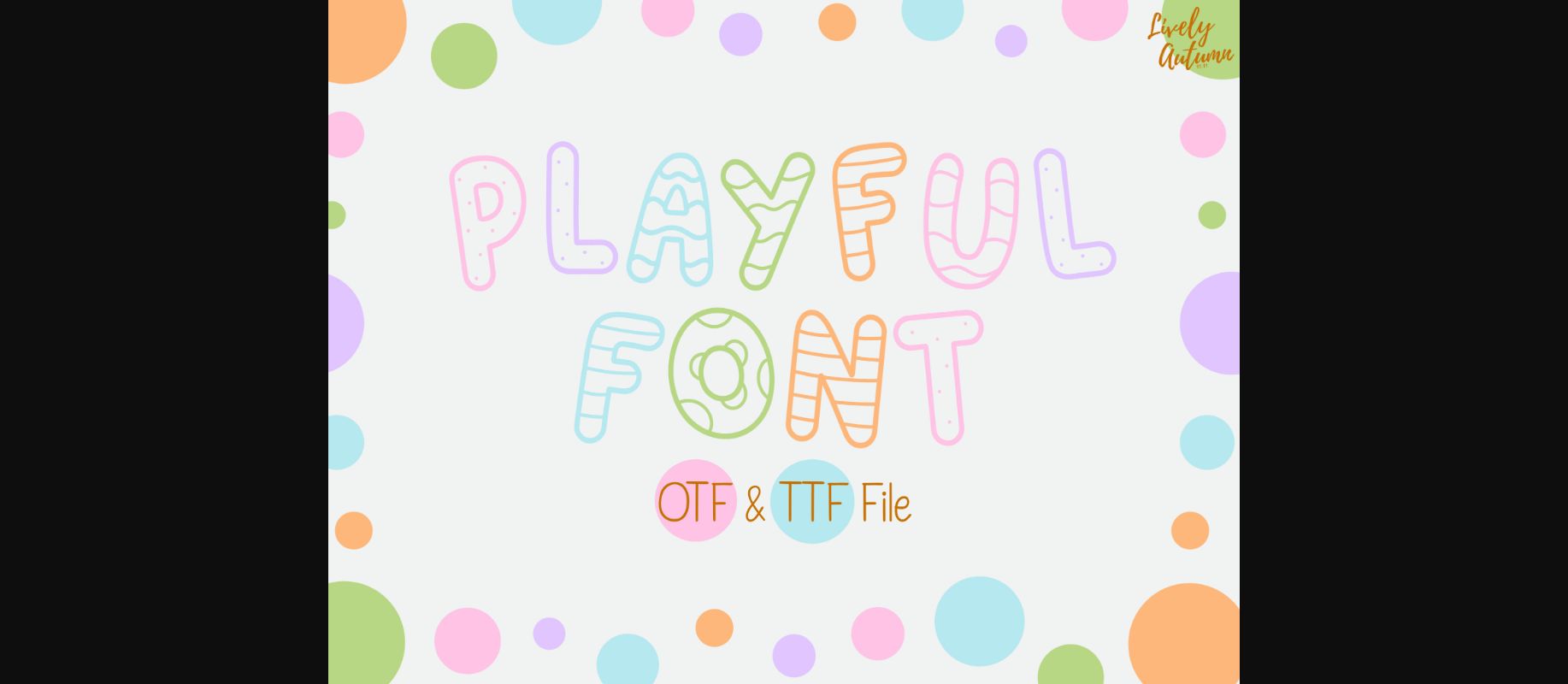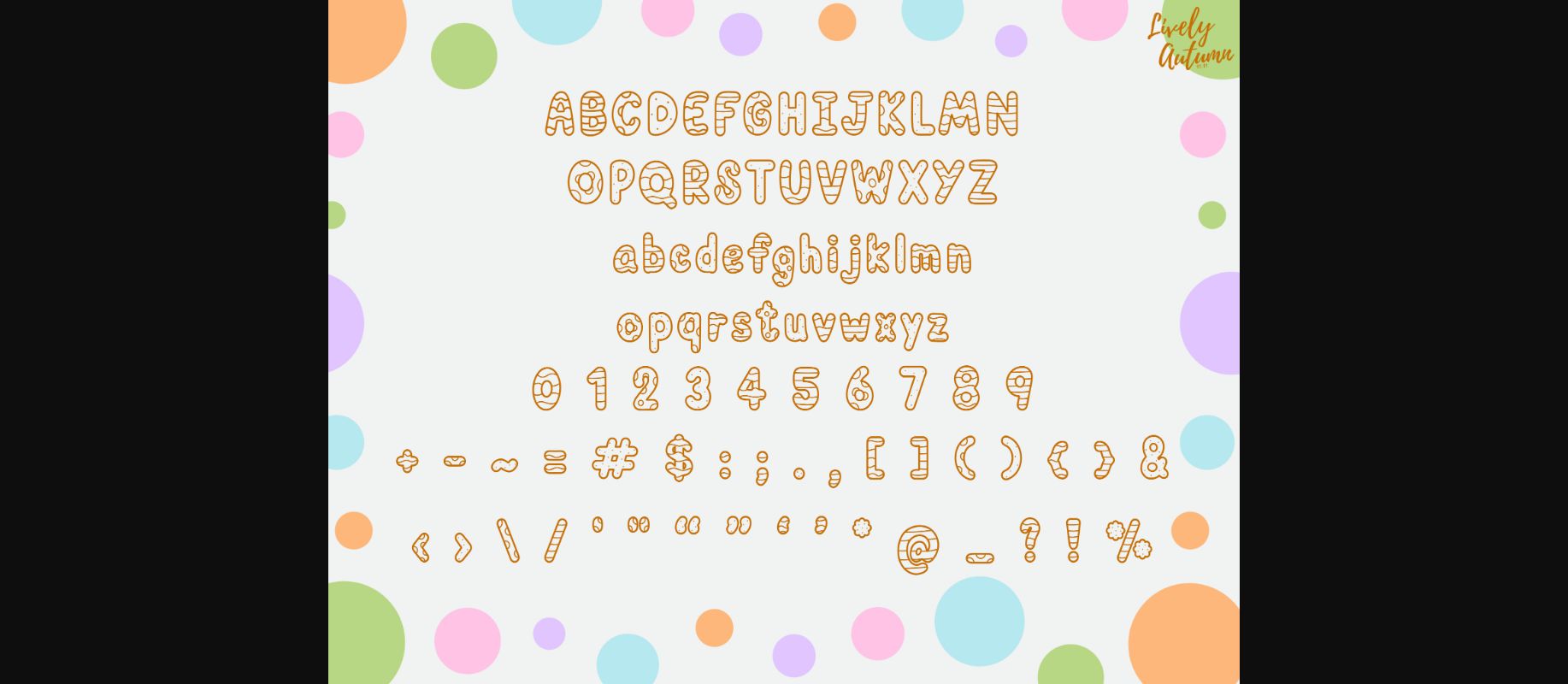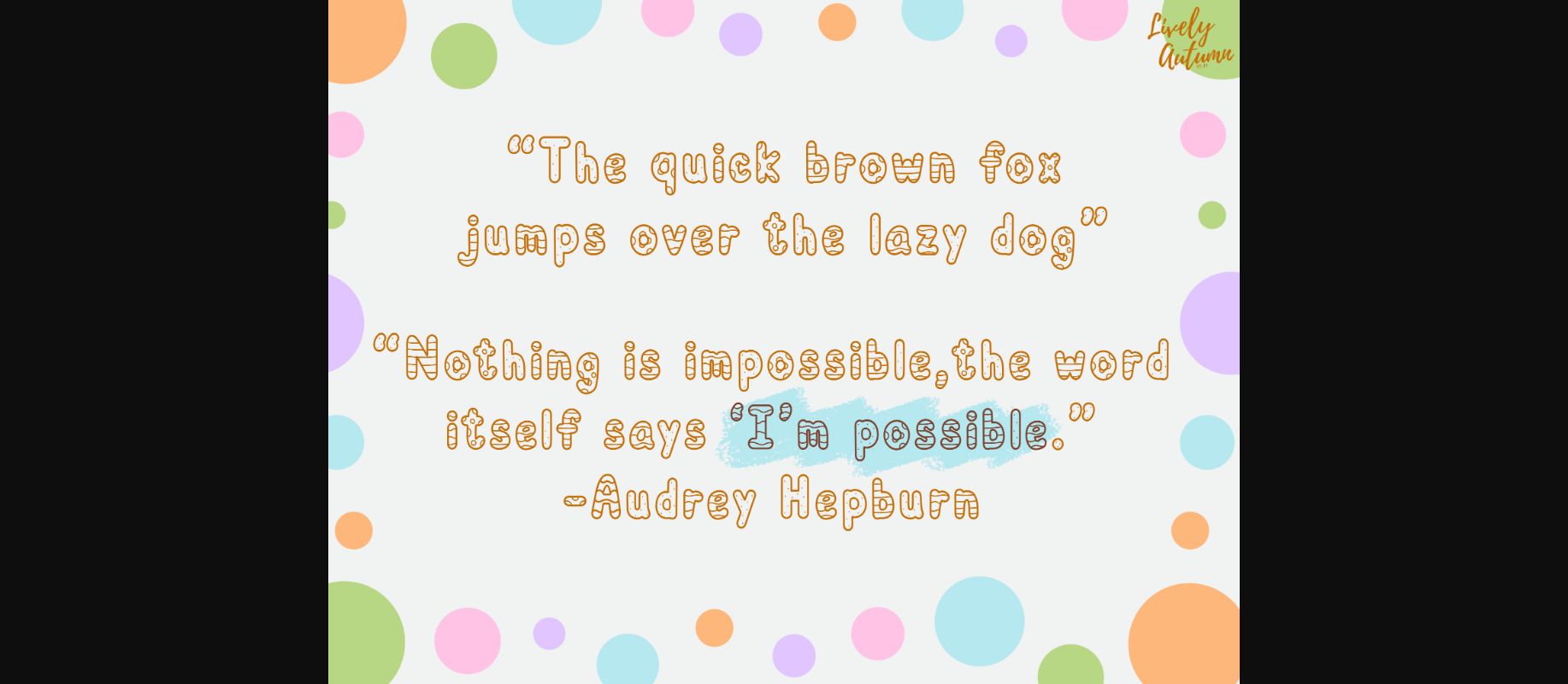
Playful Font
About Playful Font
Playful is a fancy decorative font. Each letter creates four different patterns. This font is perfect for your fun projects, personal projects, or kid-themed projects. From invitations to posters, social media graphics, and much more.